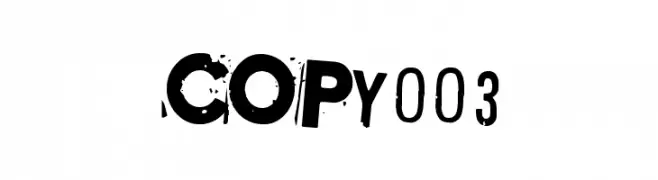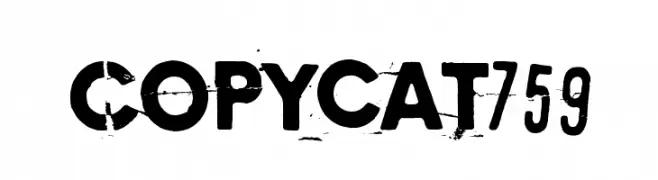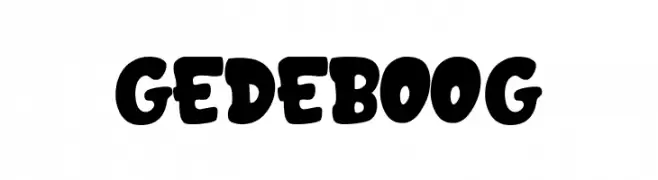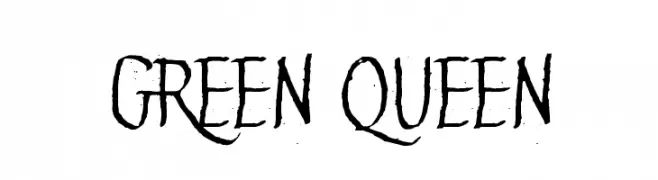
A bold, hand-drawn font with an expressive and artistic style.
A bold, distressed font with a rugged, weathered appearance.
A bold, distressed font with a grunge, textured style.
A hand-drawn, organic font with a playful and artistic style.
A bold, distressed font with a textured, vintage appearance.
A hand-drawn, rustic font with whimsical, uneven lines and organic character shapes.
A bold, distressed font with a grungy, edgy appearance.
A bold, hand-drawn font with a vintage, distressed appearance.
A playful, bold font with irregular, hand-drawn shapes and whimsical charm.
A bold, playful font with rounded edges and a whimsical style.